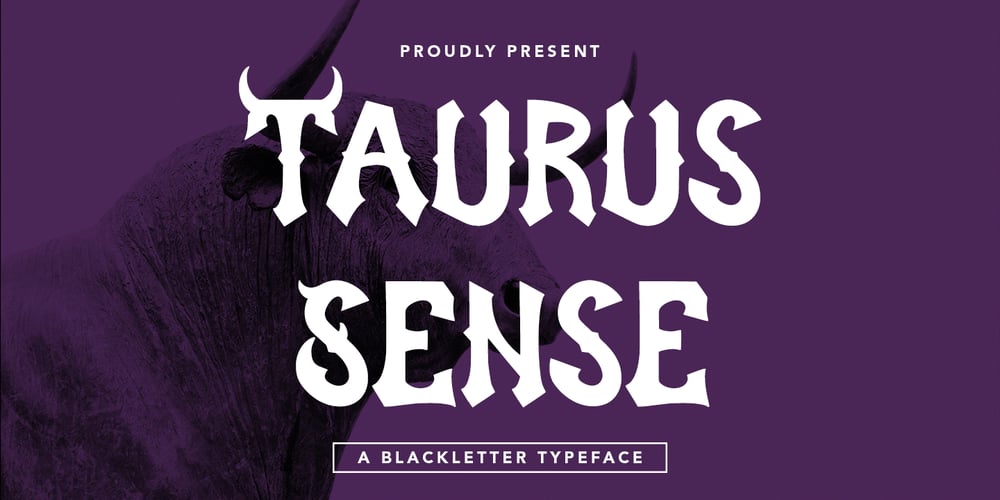
Taurus Sense Font Family was designed by Asep Rendi and published by Hatftype. Taurus Sense contains 1 styles and family package options. Is a blackletter typeface font that is inspired by gothic and horror style because it’s shape is very unique and is perfect for any project that you will use with this theme.Features : Symbol Number Multilingual support Uppercase & Lowercase Support in Mac and Windows OS Support in design application (photoshop, illustrator, and more) I really hope you enjoy it.